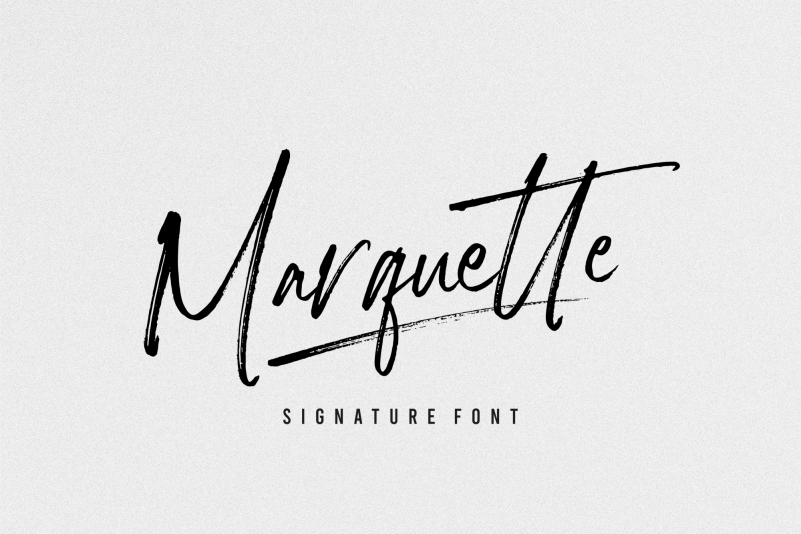
Marquette Signature Font
Marquette Signature Font is a rustic font with sharp scratch characters. Marquette is very suitable for signature logos, branding, merch, ads, book title, packaging, etc. With this font each word produced will give its own uniqueness.
Marquette includes 3 weights: – Marquette Regular: The main font with Uppercase, Lowercase, Number, Punctuation, and also multilingual support. – Marquette Alternate: Besides you can access alternative characters from the main font through the OpenType features, you can also install this alternative fonts.
Marquette Alternate will give you other options for a character, which of course will add a natural impression. – Marquette Swashes: A set of 14 swashes, you just have to install it, then type the letters A – N to make swashes.
Marquette